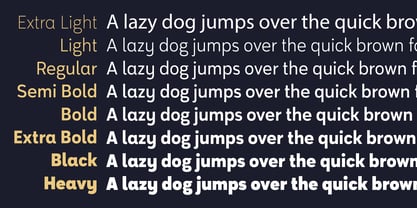
Pragmatus
von Graphite
Die Schriftfamilie Pragmatus wurde von Deepak Dogra entworfen und von Graphite veröffentlicht. Pragmatus enthält 8 Stile und Familienpaketoptionen.
Pragmatus is a clean and refined sans serif typeface family available in eight weights. Its well balanced proportions and excellent legibility help it perform effectively across a broad spectrum of point sizes and mediums covering both print and digital formats.
Its simplicity imparts a sincere yet impactful tone, which makes it assertive without being overbearing and approachable without being overly casual. This makes it suitable for a variety of applications, ranging from branding and impactful headlines to smaller body text.
Designer: Deepak Dogra
Herausgeber: Graphite
Foundry: Graphite
Eigentümer des Designs: Graphite